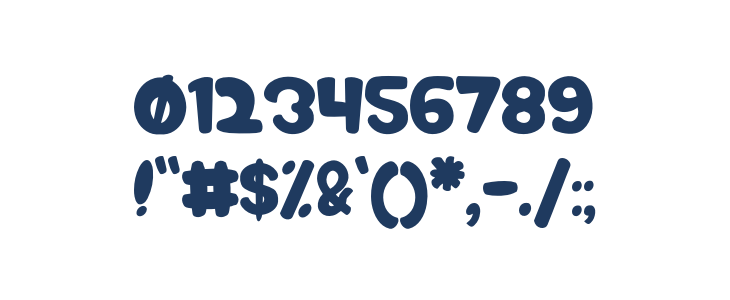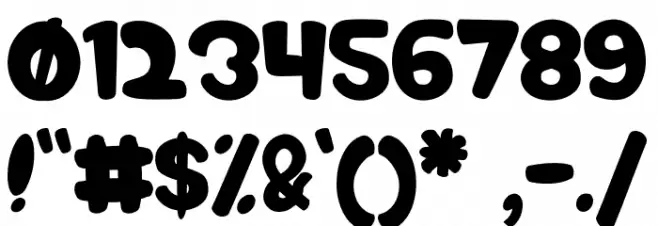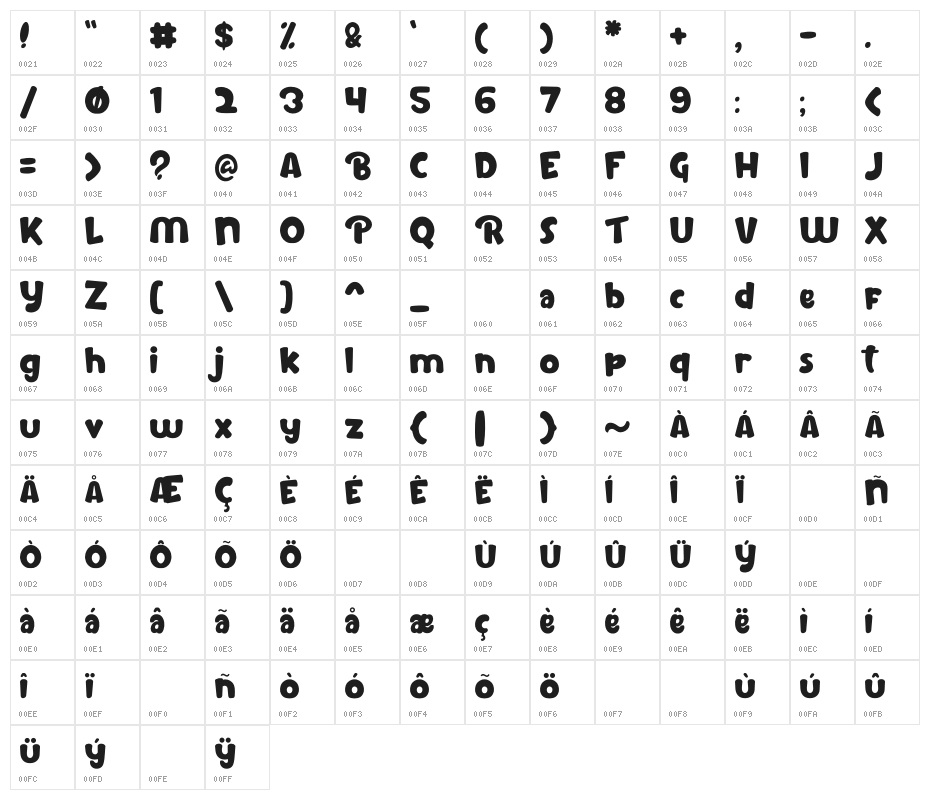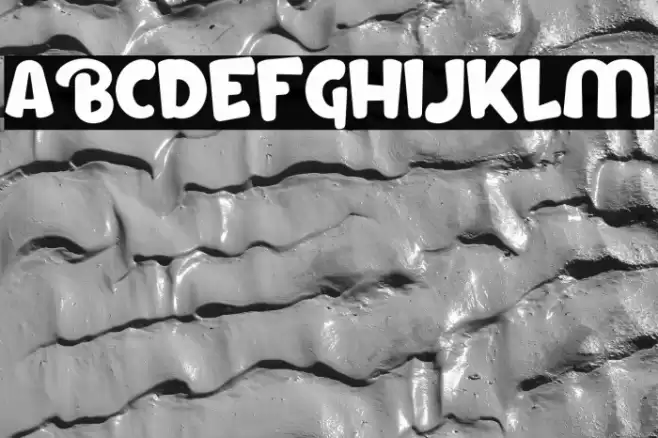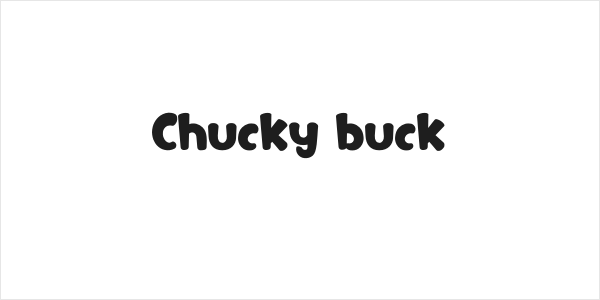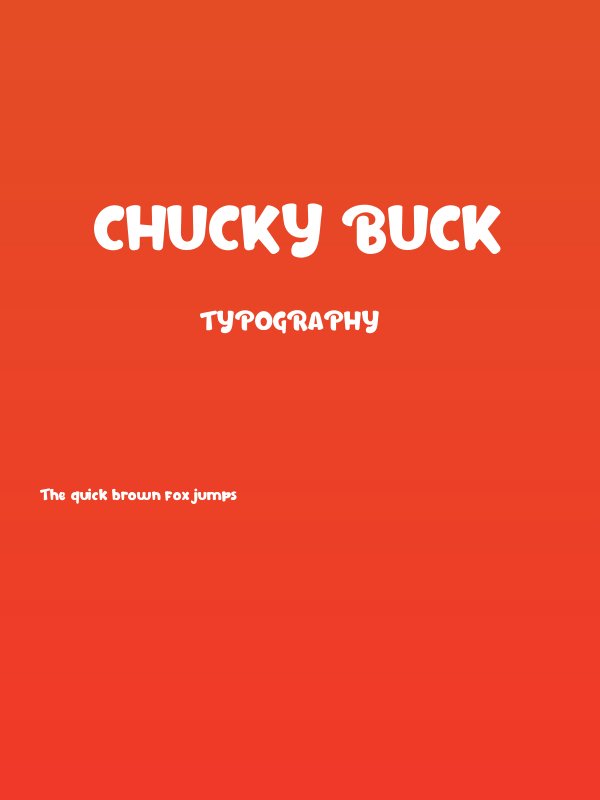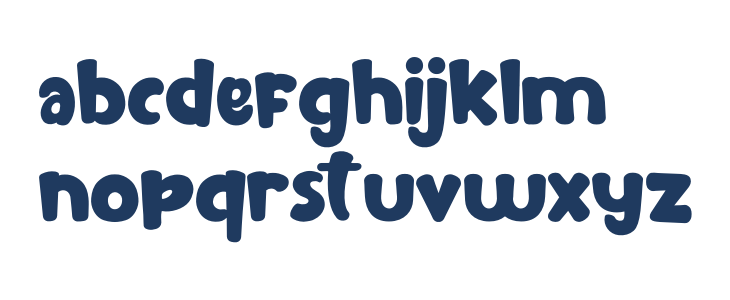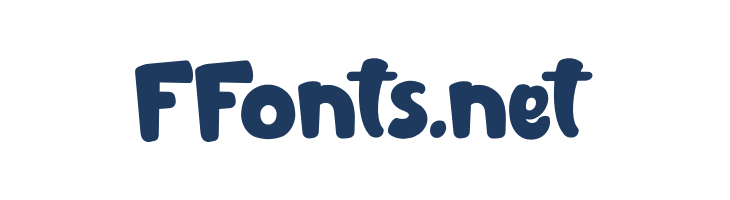
Chucky buck Font
This playful and bold font features rounded, thick characters that convey a sense of fun and whimsy. The letters are uniformly bold with a consistent stroke width, giving them a chunky appearance. The rounded edges and slightly irregular shapes add a hand-drawn feel, making it ideal for projects that require a casual and friendly tone. The numerals and special characters maintain the same playful style, ensuring consistency across all text elements. This font is perfect for capturing attention and adding a lively touch to any design.
Overall StylePlayful, Casual
Proposed ProjectsIdeal for children's books, playful branding, party invitations, and casual posters.